17 Best Wedding Fonts: Professional Picks for Invitations
Finding the “One”: Why Your Choice of Wedding Fonts Matters More Than You Think
As a designer, I’ve spent countless hours scrolling through type foundries, and I’ll be the first to tell you: a font is never just a font. It’s the visual handshake your guests receive months before the ceremony. It’s the soul of your stationery. Whether you’re aiming for a vibe that’s “high-end editorial” or “intimate garden party,” your typography does the heavy lifting in setting that mood.
In my experience, the secret to a professional-grade invitation isn’t just picking one pretty script; it’s about understanding how different Wedding Fonts talk to each other. I’ve curated this specific list to help you navigate the noise. We’re going to look at everything from sweeping, romantic calligraphy to the clean anchors that keep your details legible.
What I’m Covering in This Guide:
- The Edit: My personal breakdown of 17 standout Wedding Fonts, ranging from the luxury of Gastonia to the effortless charm of Monday.
- Design Balance: Why I always pair a “personality” font with a functional one to ensure your guests actually know where and when to show up.
- The “Cheat Sheet”: A quick-access table I built to help you match a font’s “vibe” to your specific wedding theme.
- Pro Tips: Small technical details, like PUA encoding, that will make your DIY design process a lot smoother.
1. Belgia Calligraphy Wedding Font
When I first saw Belgia Calligraphy Script, I was immediately struck by its balance. It’s not just another “fancy” font; it’s a masterclass in elegant connections. While many script fonts can become a tangled mess, Belgia stays incredibly clean and legible, which is a lifesaver for guests trying to read ceremony details.
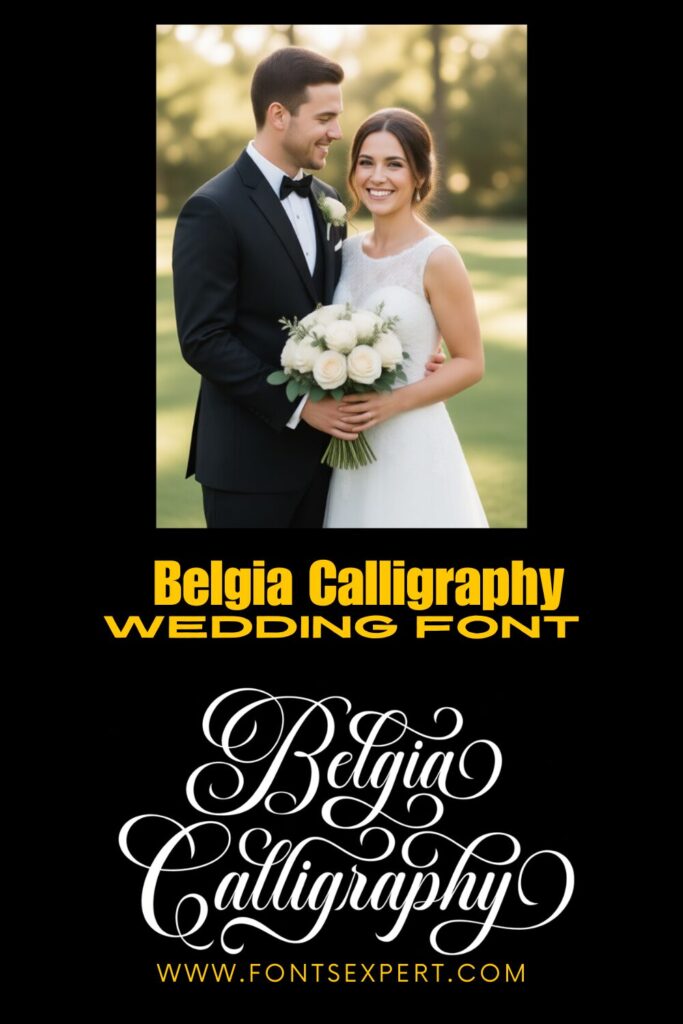
Why I love it for your wedding:
- Visual Flow: The letter connections feel organic, giving your invitations a bespoke, hand-lettered look.
- Versatility: It’s feminine without being too “frilly.” I’d use this for high-end stationery, seating charts, or even minimalist wedding logos.
- Tech-Friendly: Since it’s PUA encoded, you can access those gorgeous decorative swirls easily. No fancy design degree required!
When I want a project to scream “luxury,” Belgia is my first choice. It’s a modern script that doesn’t try too hard, yet it carries an undeniable weight of elegance. I’d recommend this for a black-tie city wedding where the aesthetic is sharp, clean, and expensive.
2. Handmade Wedding Font
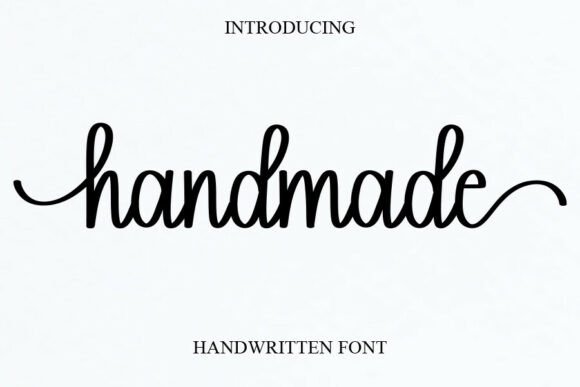
If you want your big day to feel intimate and personal rather than stiff and formal, Handmade is the font I’d point you toward. In the world of Wedding Fonts, this one stands out because it doesn’t try too hard—it feels like a heartfelt note written by a close friend.
My take on why it works:
- The “Human” Factor: It has a sweet, cursive flow that adds a joyful, approachable energy to your designs. It’s perfect for couples who want a “fancy but relaxed” vibe.
- Where to use it: I think it shines brightest on “Save the Date” cards, casual garden wedding invites, or personalized gift tags for your favors.
- Design Flexibility: It’s surprisingly versatile. Beyond the ceremony, it works beautifully for fashion lookbooks or romantic branding.
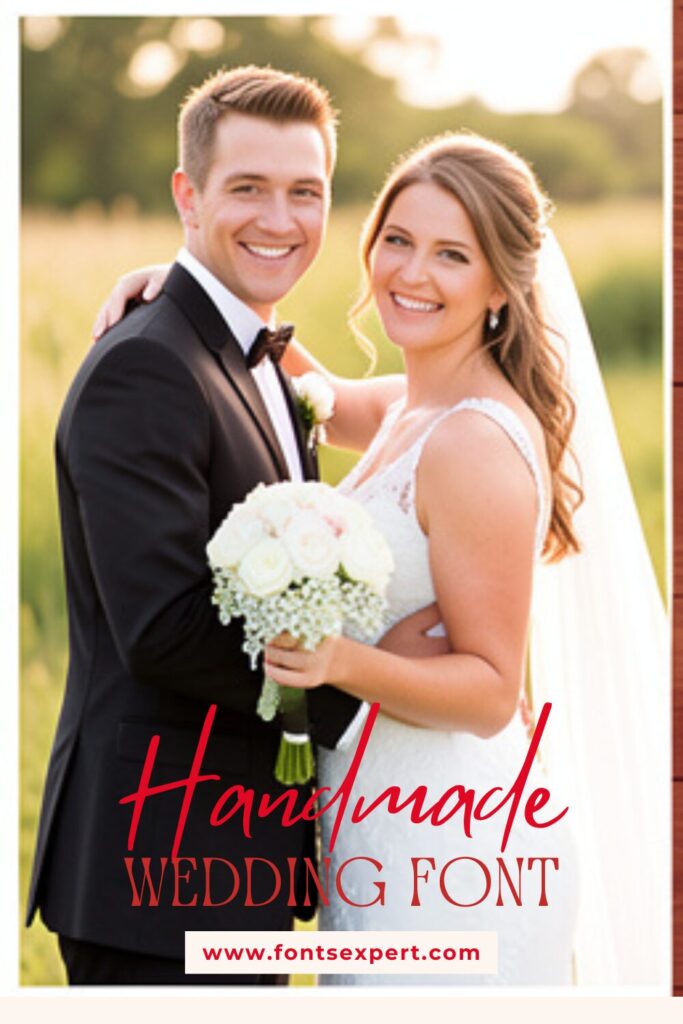
I love Handmade because it feels like a warm hug. It’s a joyful, personal script that avoids the “stiff” feeling of traditional calligraphy. If you’re planning a backyard wedding or a cozy, intimate gathering, this font adds that essential human touch.
3. Maddison Wedding Font
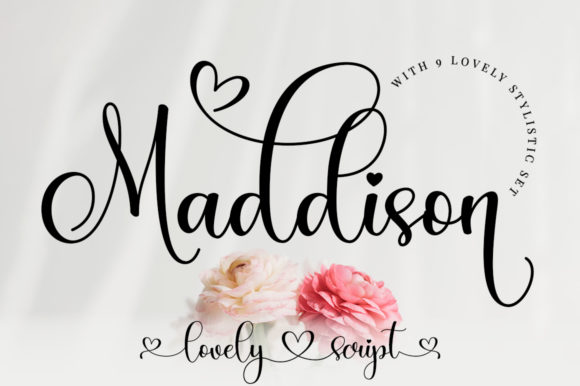
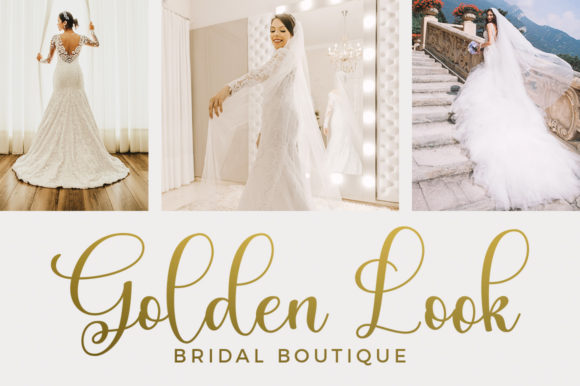
There’s something incredibly rhythmic about Maddison. It’s a calligraphy typeface where the characters literally dance along the baseline, giving it a playful, bouncy energy that I find absolutely infectious. It’s the perfect middle ground for anyone who finds traditional scripts too “stiff” but still wants that high-end, romantic feel for their Wedding Fonts.
What makes it special:
- Organic Movement: Because the letters don’t sit on a flat line, it looks natural and custom-made—almost like you hired a professional calligrapher to hand-ink every envelope.
- Easy Customization: Since it’s PUA encoded, you can play around with those gorgeous swashes and glyphs without needing complex software. It’s DIY-friendly but looks professional.
- The “Vibe”: I’d personally use this for cocktail napkins, wedding programs, or romantic signage. It’s elegant enough for a ballroom but sweet enough for a backyard celebration.
Maddison is one of those Wedding Fonts that has a beautiful “bounce.” It feels alive on the page. I often use it for reception signage or cocktail menus because it’s fun and romantic without losing its polished edge.
4. Stylish Alphabet Wedding Font
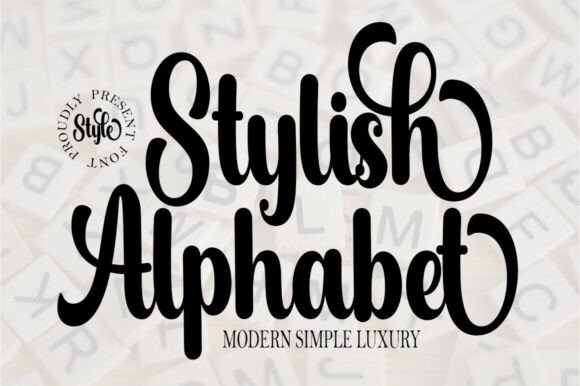
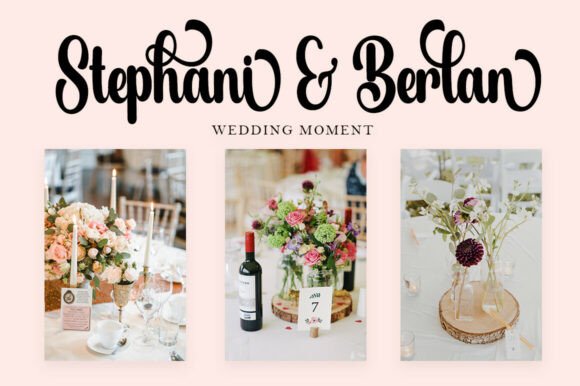
If I had to describe Stylish Alphabet in one word, it would be grace. This font is for the couple who wants their Wedding Fonts to feel whisper-soft and high-fashion. It’s not just a typeface; it’s an atmosphere. It has these incredibly thin, delicate strokes that feel like a silk ribbon blowing in the wind.
My thoughts on where it shines:
- Ultra-Feminine Vibe: It brings a level of elegance that’s hard to match. If your wedding theme is “ethereal” or “fine art,” this is your go-to.
- Versatile Brilliance: While it’s stunning for invitations, I think it looks spectacular on large-scale signage—think “Welcome to our Wedding” boards or minimalist seating charts.
- Premium Branding: It has that “expensive” look, making it perfect for custom logos or high-end labels for your wedding favors.
If your vibe is “fine art” or “ethereal,” Stylish Alphabet is perfection. It’s delicate and airy. I find it works best when surrounded by plenty of white space—it’s a quiet font that speaks volumes about your taste.
5. Joseph Sophia Wedding Font
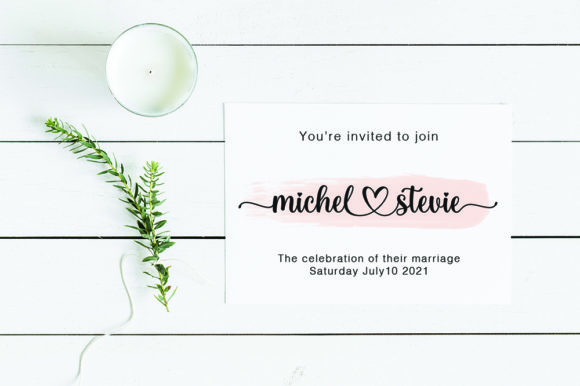
If you’re looking for a font that feels like a warm embrace, Joseph Sophia is it. What I love about this one is how it strikes that rare balance between being incredibly charming and professionally elegant. Among Wedding Fonts, this is the “sweetheart”—it’s got those smooth, flowing lines that make every word look like it was written with love.
Why I’d pick it for your big day:
- That Custom Feel: The varying baseline gives it a natural, hand-inked rhythm. It doesn’t look like a computer font; it looks like high-end calligraphy.
- Design Playground: Because it’s PUA encoded, you get access to all those stunning alternates and swashes. You can really “dress up” your titles to make them pop.
- Ultimate Versatility: It’s my top recommendation for thank you cards, heartfelt quotes, or even your wedding logo. It adds a “handwritten touch” without sacrificing readability.
I reach for Joseph Sophia when a couple wants something sweet but grounded. It’s an authentic-feeling script that works beautifully for thank-you cards. It feels sincere, which is exactly the mood you want for post-wedding gratitude.
6. Thick Black Wedding Font
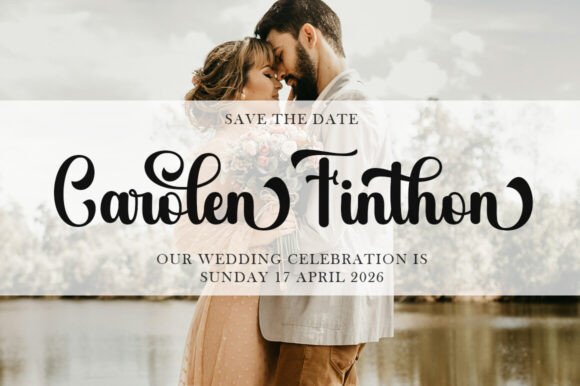
Don’t let the name fool you—Thick Black is surprisingly delicate. While it carries a bit more “weight” than a hairline script, it still radiates an incredible softness and elegance. In the world of Wedding Fonts, this is the one you pick when you want your text to actually pop against a busy background or a textured paper without losing that feminine touch.
Why I’m a fan of this one:
- Visual Authority: It has these graceful, confident strokes that make it perfect for main titles or your names on the invitation cover.
- Elevated Design: It genuinely feels high-end. If you’re aiming for a “luxury boutique” or “modern chic” wedding vibe, this font elevates the entire aesthetic instantly.
- Multi-Purpose Magic: It’s robust enough for wooden welcome signs and labels, but still refined enough for the smallest RSVP card.
Don’t let the name fool you—this is pure sophistication. Thick Black is a bold, high-contrast script. In my design work, I use this for names on invitations when I want them to be the undisputed star of the show.
7. Gastonia Script Wedding Font
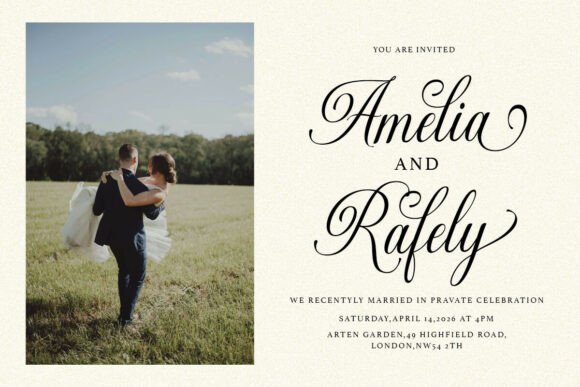
If you’re looking for the “gold standard” of sophistication, Gastonia is the font that truly defines luxury. It’s an elegant modern calligraphy script that feels like it belongs on the cover of a high-end bridal magazine. When I look at its flowing strokes, I see a font that doesn’t just sit on the page—it commands attention with a quiet, refined confidence.
Why it’s a must-have for your Wedding Fonts:
- Pure Sophistication: It has these graceful curves and polished letterforms that feel incredibly upscale. It’s the perfect choice for a formal black-tie wedding or a high-end hotel reception.
- Editorial Flair: Beyond just invitations, it’s brilliant for branding and editorial layouts. If you’re making a custom wedding website or a luxury lookbook, Gastonia adds that “designer” touch instantly.
- Classy & Timeless: It balances decorative flair with a clean, modern edge, so your photos and stationery won’t look “dated” twenty years from now.
Gastonia is my go-to for “editorial” luxury. It looks like it belongs on the pages of Vogue. It’s a stunning script for high-end wedding branding. If you want your wedding to feel like a curated event, this is your font.
8. History Wedding Font
If you want your love story to feel as timeless as its name suggests, History is a font you’ll fall in love with. It’s a sweet, cursive handwritten script that captures that rare “perfectly imperfect” look. When I see this font, I think of handwritten vows and old-fashioned love letters tucked away for safekeeping.
Why it’s a favorite for your wedding:
- The “Joyful” Factor: It has a light, airy energy that adds a romantic touch without being overly formal. It’s a great way to keep your Wedding Fonts feeling personal and warm.
- Casual Elegance: It hits that sweet spot—fancy enough for a high-end lookbook, but casual enough for a relaxed garden party or a cozy winter ceremony.
- Beyond the Invite: I’d use this for “Thank You” cards, Instagram announcement graphics, or even custom branding for a wedding planner.
History feels like a modern heirloom. It’s a handwritten font that captures the look of a personal letter. I love using this for printed vows or programs where the goal is to make the guest feel like they’re reading something deeply personal.
9. Biscuit Wedding Font
If you’re looking for a font that feels as warm and comforting as its name, Biscuit is a total delight. It’s a sweet, cursive handwritten script that manages to be “fancy” without being intimidating. When I see this font, I immediately think of sun-drenched brunch weddings and laughter-filled receptions—it just has that inherently joyful energy.
Why I recommend it for your wedding:
- That “Casual Chic” Vibe: It’s the perfect choice when you want your Wedding Fonts to look elegant but still relaxed and approachable.
- Romantic Versatility: While it’s a natural fit for “Save the Dates” and greeting cards, I also love it for fashion lookbooks or romantic branding. It adds a “human touch” that feels very artisanal.
- Gentle Flow: The strokes are soft and gentle, making it incredibly easy on the eyes while still maintaining that gorgeous, hand-inked flow.
Biscuit is just plain charming. It’s a shorter, rounder script that feels very “today.” It’s perfect for brunch weddings, garden parties, or cute favor tags that need a bit of personality.
10. Lucky Wedding Font
If you’re looking for a font that feels like a lucky charm, this is it. Lucky is an incredibly elegant and delicate handwritten typeface that brings a sense of airy lightness to the page. To me, it feels like the kind of script you’d see on a high-end boutique window or a bespoke wedding invitation. It’s thin, refined, and effortlessly chic.
Why I think it’s a “Lucky” find:
- Delicate Precision: The strokes are fine and graceful, making it one of those Wedding Fonts that works perfectly for minimalist or “fine art” wedding aesthetics.
- Total Creative Control: Since it’s PUA encoded, you can easily swap out letters for those gorgeous alternates and glyphs. It’s like having a custom calligrapher at your fingertips!
- Beyond the Big Day: It’s so versatile that it transitions perfectly from wedding invitations to professional business cards or dreamy social media posts.
I describe Lucky as “delicate magic.” It’s incredibly thin and graceful. When I use this in my designs, I’m careful to pair it with a solid background so those beautiful, fine lines can really shine.
11. Cherry Wedding Font
If you want your big day to feel like a celebration of pure joy, Cherry is the font that brings that “sweet as a summer day” energy. It’s a cursive handwritten script that manages to be incredibly gentle without fading into the background. When I look at it, I see a font that is perfectly at home on a romantic garden wedding invite or a playful “Save the Date” card.
Why it’s a “Cherry” on top for your Wedding Fonts:
- Joyful Movement: It has a rhythmic, bouncy flow that feels modern and approachable. It’s the opposite of “stiff” calligraphy.
- The “Casual-Elegant” Balance: It hits that sweet spot where it looks fancy enough for a wedding logo but casual enough for a heartfelt thank-you note.
- Versatile Charm: Beyond the ceremony, it’s a dream for fashion lookbooks or romantic marketing. It adds a “human touch” that feels artisanal and bespoke.
Cherry is my favorite for summer weddings. It’s a sweet, cursive font that radiates happiness. It manages to be “fancy” while staying completely casual and approachable—a rare balance to hit.
12. Alina Monogram Wedding Font
If you want to add a truly custom, high-end feel to your big day, Alina Monogram is a game-changer. It’s a charming decorative font that captures that “authentic” hand-crafted feel we all crave. In the world of Wedding Fonts, this is the one you pull out when you want to create a signature look that feels uniquely yours.
Why I’m obsessed with it for weddings:
- The Personal Touch: It’s designed for creating gorgeous monograms and stationery art. Imagine your initials intertwined on your wax seals or the top of your menu—it looks instantly bespoke.
- Authentic Texture: It has a lovely, natural flow that makes your invitations feel like they were pulled straight from an artist’s studio.
- Eye-Catching Details: While it’s perfect for print, I also love using it for social media announcements. It’s “cute” but maintains a level of sophistication that keeps it looking professional.
For couples who want a “brand” for their wedding, Alina Monogram is a must-have. I use it to create bespoke monograms for wax seals and napkins. It’s the easiest way to make a wedding feel high-budget and custom-made.
13. Winterday Wedding Font
There is something so incredibly peaceful about Winterday. It’s a delicate, timeless handwritten font that feels as light as a snowflake. While some Wedding Fonts can feel heavy or overly dramatic, Winterday keeps things airy and sweet. It’s the kind of script that makes your design feel “alive” rather than just printed on a page.
Why it’s a beautiful choice for your wedding:
- Unique Character: Every letter has its own personality, giving it that genuine “penned by hand” look that couples love for intimate ceremonies.
- Effortless Elegance: It’s the ideal choice for creating sweet wedding logos or romantic quotes for your reception signage. It feels modern but won’t go out of style.
- Creative Freedom: Since it’s PUA encoded, you have easy access to all those extra glyphs and swashes. You can really customize the look of your names to make them stand out.
Winterday has a beautiful, light rhythm. Even though it’s “delicate,” it has great character. I love that it’s PUA encoded, meaning I can play with all the extra swashes to make the couple’s names look like custom calligraphy.
14. Welcome Wedding Font
If you want your guests to feel a sense of luxury from the moment they open their mailbox, Welcome is the font that delivers. It is a stylish and incredibly elegant handwritten script that lives up to its name—it’s inviting, warm, and sophisticated. In the curated world of Wedding Fonts, this is the one I choose when a project needs a high-end, polished finish.
Why I’m a fan of this one:
- Stunning Versatility: It looks equally gorgeous on formal wedding invitations as it does on a heartfelt “Thank You” card. It has a professional weight to it that commands respect.
- Custom Flourishes: Since it’s PUA encoded, you can easily tap into those extra glyphs and alternates. You can take a simple name and turn it into a work of art with just a few clicks.
- Modern Luxury: It’s my top recommendation for wedding logos or custom business cards for wedding vendors. It adds that “handwritten touch” without looking messy or too casual.
Welcome is exactly what the name implies—inviting. It’s an incredibly elegant script that looks stunning on a formal RSVP card. It’s professional, clean, and feels very “complete” as a design element.
15. Monday Wedding Font
If you’re looking for a script that feels both “high-fashion” and “heartfelt,” Monday is the one. It’s an elegant script that strikes a beautiful balance between a classic aesthetic and a sharp, modern edge. In the world of Wedding Fonts, this is my go-to for couples who want a look that is visually striking but still incredibly clean and easy to read.
Why it’s a winner for your big day:
- Flawless Readability: Thanks to those fancy but clean letter connections, your guests won’t have to squint to read the venue address. It’s feminine without being cluttered.
- Formal Flair: It has a “designer” feel that works perfectly for restaurant-style menus, formal invitations, or high-end wedding stationery.
- Attention to Detail: You can tell every character was designed with care. It’s the kind of font that makes a simple RSVP card look like a luxury brand advertisement.
Monday is a powerhouse. It’s clean, feminine, and has fantastic letter connections. As a designer, I appreciate its readability; it’s one of the few scripts that stays legible even when printed at a smaller size on a menu.
16. Sister Wedding Font
There is something deeply personal about the Sister font. It’s a sweet, cursive handwritten script that feels like it was written by someone who truly cares about you. In a sea of Wedding Fonts, this one stands out for its “gentle” soul—it doesn’t shout for attention, yet it captures the heart with its joyful and romantic rhythm.
My take on why it’s perfect for you:
- Authentic Warmth: It adds a human touch that feels incredibly grounded. If your wedding is all about family and close-knit vibes, this font carries that energy perfectly.
- The “Casual-Elegant” Sweet Spot: It’s fancy enough for a bride’s lookbook but casual enough for a fun cocktail menu or a “Save the Date” magnet.
- Versatile Branding: Beyond the ceremony, it’s a dream for fashion branding or marketing promotions where you want to look sophisticated but approachable.
Sister is a soulful, gentle script. It’s my recommendation for “lookbook” style weddings where the photography is the focus and you need a font that complements the images rather than competing with them.
17. Minimalist Wedding Font
In a world full of swirls and flourishes, sometimes you need a font that knows how to let the other elements breathe. Minimalist is exactly that—a neat, understated sans serif that is the “quiet luxury” of Wedding Fonts. I love this font because it acts as the perfect anchor; it’s the clean, modern foundation that makes your fancy scripts truly pop.
Why every wedding design needs it:
- The Perfect Partner: While a script font is great for your names, you need something readable for the “where and when.” Minimalist handles the small details (like addresses and RSVP dates) with effortless clarity.
- Modern & Neat: It has a “less is more” vibe that works brilliantly for minimalist wedding themes, industrial venue vibes, or sleek, contemporary branding.
- Ultimate Versatility: Because it’s so clean, it stands out by not being distracting. It’s the ideal choice for body text on wedding websites, labels, or even modern business cards.
Every script needs a partner, and Minimalist is my secret weapon. It’s a neat, understated sans serif that I use for all the “boring” details—addresses, dates, and times. It keeps the design grounded and ensures the guest actually knows where to go.
The Ultimate Wedding Fonts Cheat Sheet
| Font Name | The “Vibe” | Best Used For… |
| Belgia | Luxurious & Modern | High-end formal invitations & menus |
| Handmade | Casual & Joyful | Garden weddings & “Save the Dates” |
| Maddison | Playful & Rhythmic | Cocktail napkins & romantic signage |
| Stylish Alphabet | Soft & Ethereal | Fine art weddings & minimalist branding |
| Joseph Sophia | Heartfelt & Charming | Thank you cards & wedding logos |
| Thick Black | Bold & Sophisticated | Statement headings & favor labels |
| Gastonia | Pure Luxury & Editorial | Black-tie invitations & upscale packaging |
| History | Timeless & Personal | Hand-written style vows & announcements |
| Biscuit | Sweet & Approachable | Brunch weddings & gift tags |
| Lucky | Delicate & Magical | Airy, minimalist invites & social media |
| Cherry | Playful & Romantic | Summer wedding themes & fun branding |
| Alina Monogram | Artisanal & Custom | Wax seals, monograms & stationery art |
| Winterday | Peaceful & Fresh | Winter weddings & serene quote art |
| Welcome | Polished & Inviting | RSVP cards & professional wedding services |
| Monday | Clean & Fashionable | Magazine-style layouts & formal menus |
| Sister | Soulful & Intimate | Small, family-oriented wedding details |
| Minimalist | Neat & Essential | Body text, addresses, & clean pairing |
Final Thoughts: Choosing Your Forever Font
Finding the perfect typography for your big day is about more than just aesthetics—it’s about finding the “voice” of your celebration. As you can see in the Cheat Sheet above, there is a font for every mood, whether you’ve fallen for the high-end luxury of Gastonia or the down-to-earth charm of Handmade. Your choice of Wedding Fonts will be the first thing your guests “feel” when they open that envelope.
My Pro-Tip for the Perfect Match
If I can leave you with one final piece of advice, it’s this: Balance is everything. While it’s tempting to use a gorgeous script for every single word, your design will truly sing when you pair a decorative typeface from our list with a clean partner like Minimalist. Use your romantic, “dancing” scripts for the big moments—your names, the headings, the “I do”—and let a neat, simple font handle the heavy lifting of the ceremony details and addresses. This ensures your stationery is as readable as it is beautiful.
At the end of the day, there is no “wrong” choice if it feels like you. Trust your gut, play with those PUA-encoded swashes, and have fun watching your love story take shape on the page!